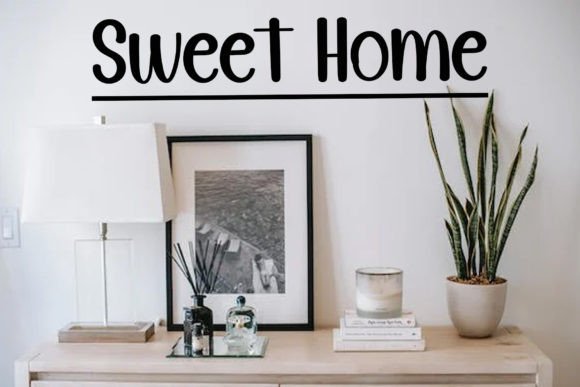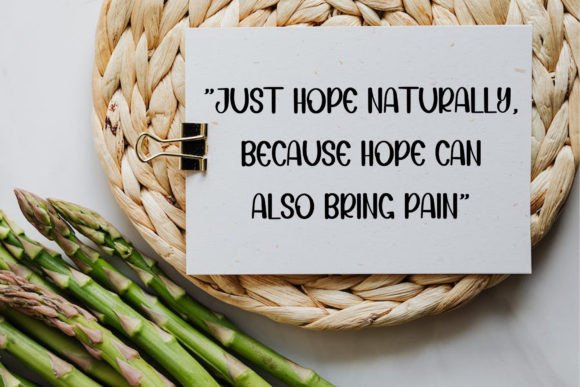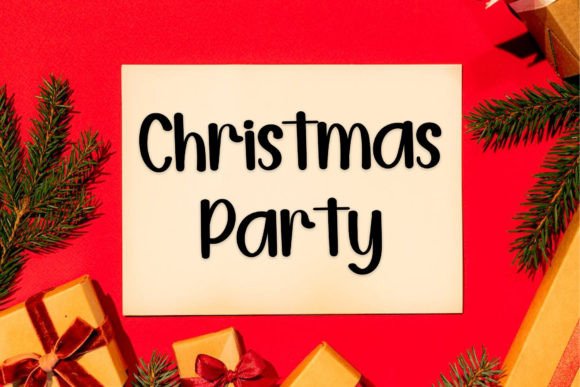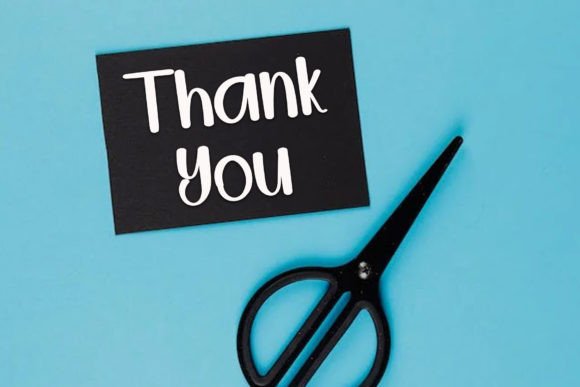
Introducing Happy Morning Font: Elevate Your Designs with Elegance
Are you on the hunt for a font that adds a touch of sophistication and charm to your projects? Look no further than the Happy Morning Font, a stunning handwritten font that is sure to capture your heart. With its elegant touch and timeless style, this font is perfect for designers and crafters looking to create spectacular designs that stand out from the crowd.
The Beauty of Happy Morning Font
Happy Morning Font is a neat and beautiful handwritten font that boasts an incredibly distinct and timeless style. Its elegant touch is perfect for adding a touch of sophistication to any project, whether you’re working on a logo, branding materials, or personal crafts. The font’s unique charm is sure to fall in love with, and its versatility makes it an excellent choice for a wide range of design applications.
Key Features of Happy Morning Font
- Elegant Touch: Happy Morning Font features an elegant touch that adds a touch of sophistication to any project.
- Timeless Style: The font’s timeless style ensures that your designs will remain stylish and relevant for years to come.
- Handwritten Charm: The font’s handwritten charm adds a personal touch to your designs, making them stand out from the crowd.
- Versatility: Happy Morning Font is perfect for a wide range of design applications, from logos and branding materials to personal crafts and projects.
Happy Morning Font is an excellent choice for designers and crafters looking to add a touch of elegance to their projects. Whether you’re working on a professional design project or a personal craft, this font is sure to inspire your creativity and help you create stunning designs. Its unique charm and versatility make it an excellent addition to any design library.
Use Cases for Happy Morning Font
Happy Morning Font is perfect for a wide range of design applications, including:
- Logo Design: Use Happy Morning Font to create a stunning logo that adds a touch of elegance to your brand.
- Branding Materials: The font is perfect for creating branding materials, such as business cards, letterheads, and brochures.
- Personal Crafts: Happy Morning Font is also perfect for personal crafts, such as handmade cards, gift tags, and scrapbooking.
- Digital Designs: The font can be used for digital designs, such as social media graphics, blog posts, and website headers.
Tips for Using Happy Morning Font
Here are some tips for using Happy Morning Font to create stunning designs:
- Experiment with Font Sizes: Experiment with different font sizes to add visual interest to your designs.
- Pair with Other Fonts: Pair Happy Morning Font with other fonts to create a unique and stylish combination.
- Use for Headings and Titles: Use the font for headings and titles to add a touch of elegance to your designs.
- Add a Personal Touch: Use the font to add a personal touch to your designs, such as in handmade cards or gift tags.
In conclusion, Happy Morning Font is a stunning handwritten font that is perfect for designers and crafters looking to add a touch of elegance to their projects. With its elegant touch, timeless style, and handwritten charm, this font is sure to inspire your creativity and help you create spectacular designs. Whether you’re working on a professional design project or a personal craft, Happy Morning Font is an excellent choice for any design application.